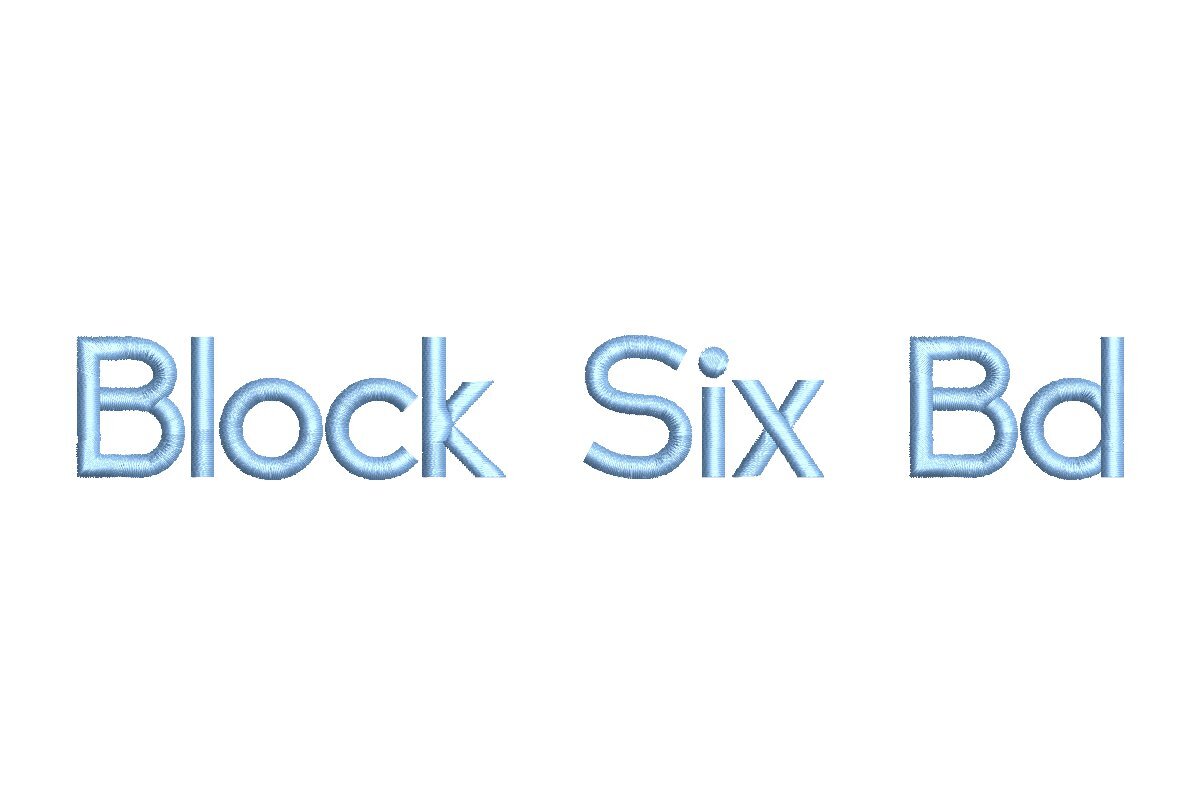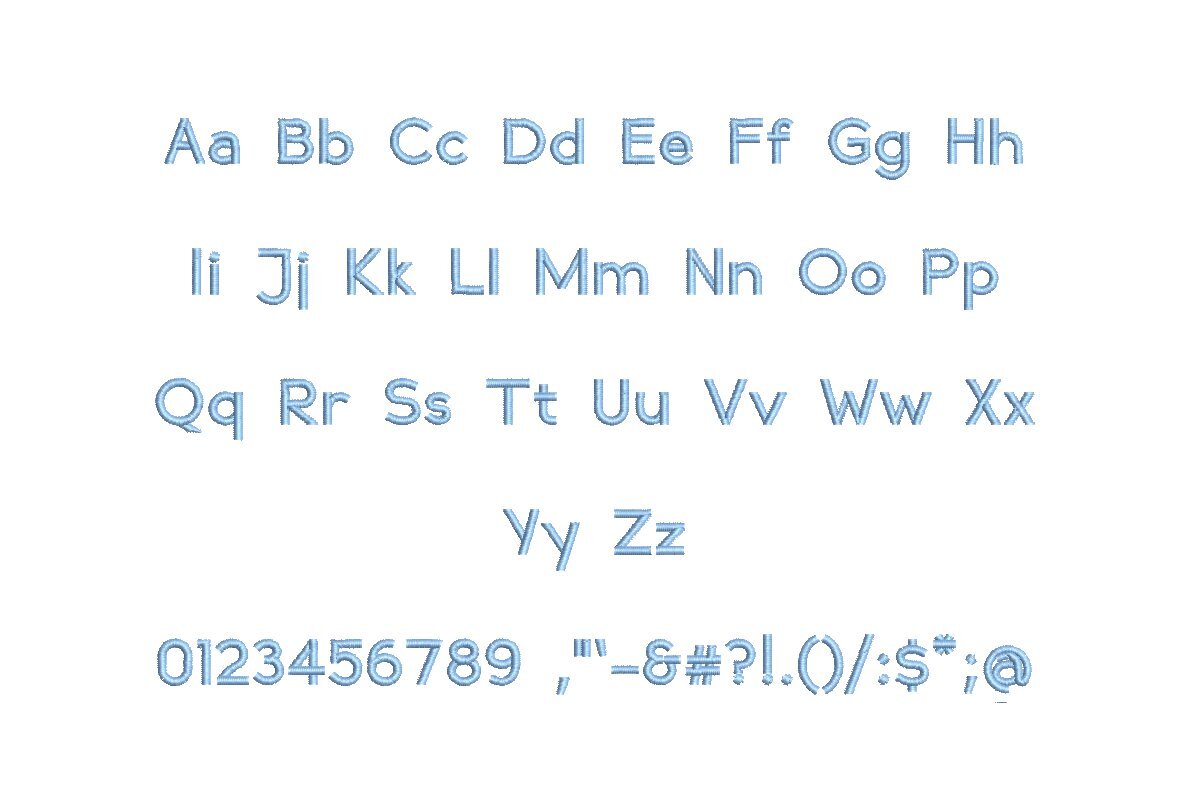
Discover the Bold Block 6 ESA Font - Your Gateway to Impeccable Embroidery! Designed to seamlessly integrate with Wilcom Studio e4.5.6 and Hatch 3 versions and beyond, this font redefines embroidery precision. Its bold and eye-catching design adds a unique touch to your projects, making your work stand out. Achieve professional-quality embroidery with ease, thanks to this user-friendly, digitized font. Perfect stitching, every time. Explore limitless creative possibilities with Block 6 Bold ESA Font and elevate your Wilcom Studio and Hatch software. Upgrade today to embark on a journey of unrivaled embroidery excellence. Your masterpieces deserve nothing less.